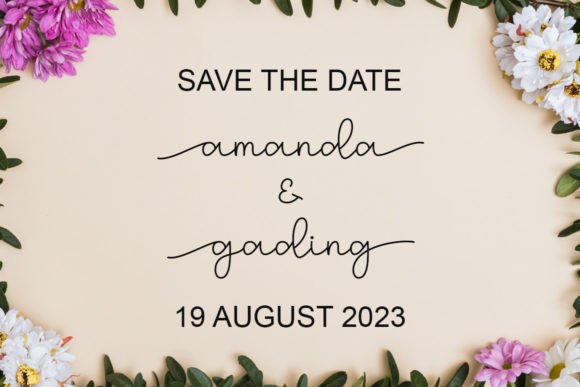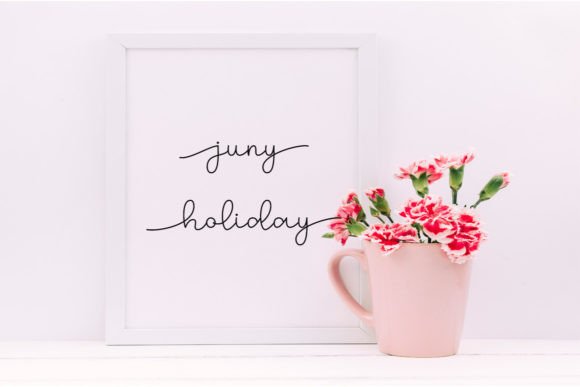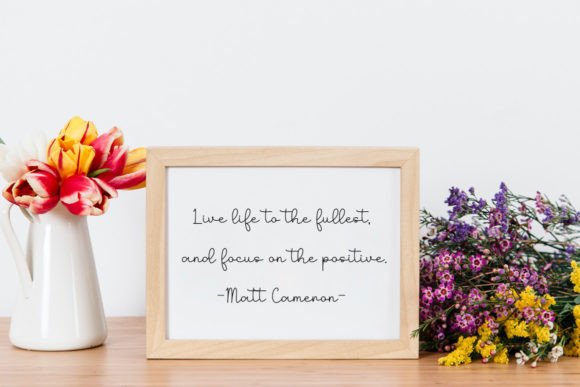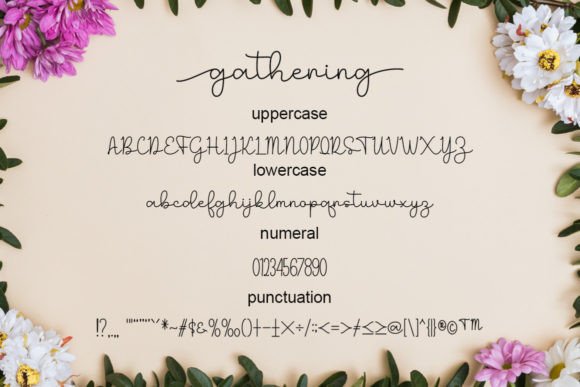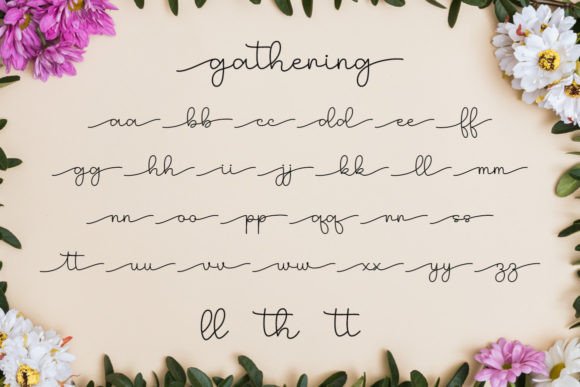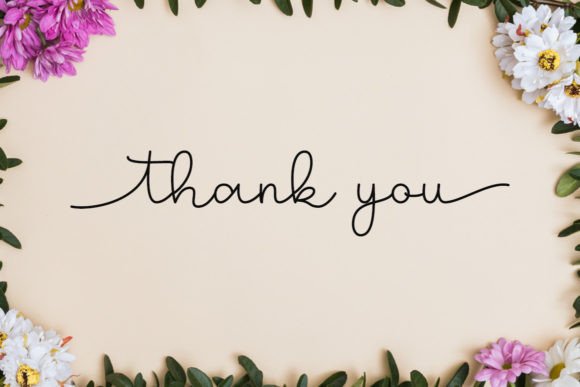
The Designer’s Delight: A Deep Dive into Gathering Font
I’ll never forget the time I was working on a wedding invitation project, and my client asked for a font that was “whimsical, yet elegant.” I scoured the internet, tried out dozens of fonts, but nothing seemed quite right. That was until I stumbled upon Gathering Font. This stunning script font has delicate strokes and intricate curves, accented by tiny hearts that add a touch of whimsy and romance. It was love at first sight! In this article, I’ll share my experience with Gathering Font, its features, and how to make the most of it in your designs.
- ✨ Delicate strokes and intricate curves that exude elegance
- ✅ Tiny hearts that add a touch of whimsy and romance
- 💕 Perfect for invitations, greeting cards, and other designs that call for a touch of sweetness and charm
- 🔍 PUA encoded, making it easy to access all the amazing glyphs and ligatures
While Gathering Font is an exquisite typeface, there are a few things to keep in mind:
- ⚠️ Some of the glyphs and ligatures may not work seamlessly in all design software
- 🤔 The font may not be suitable for very large or very small text sizes
Gathering Font was designed with love and care by a team of talented typographers. The font is inspired by the beauty of handwriting and the elegance of traditional calligraphy. The tiny hearts and intricate curves were added to give the font a touch of whimsy and romance.
A: PUA (Private Use Area) encoding is a way of encoding fonts that allows for the use of special glyphs and ligatures. Gathering Font is PUA encoded, making it easy to access all the amazing glyphs and ligatures.
A: While Gathering Font is an exquisite typeface, it may not be suitable for very large text sizes. The font is best used for designs that require a touch of elegance and whimsy, such as invitations and greeting cards.